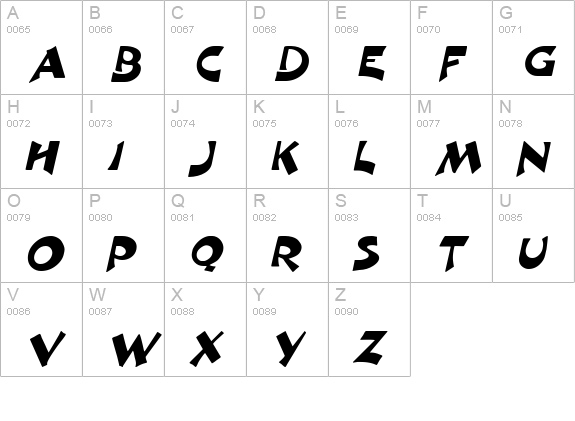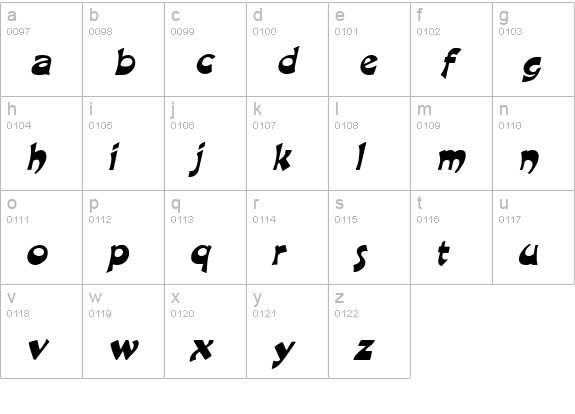
Crane Italic Font Details
Crane Italic is a distinctive, italic variant in the Crane typeface family \xE2\x80\x94 well suited to design and typography projects.
Crane Italic font is a sleek and elegant typeface designed for those seeking a touch of sophistication in their designs. With its graceful curves and modern flair, Crane Italic adds a sense of refinement to any project. The italicized style of this font exudes a sense of elegance and class, making it perfect for branding, invitations, and editorial designs. What's even better is that Crane Italic font is available for free download at FontsMarket.com. This means that you can easily access this stylish typeface to elevate your projects without any cost. So why wait? Download Crane Italic font now and add a touch of sophistication to your designs today!